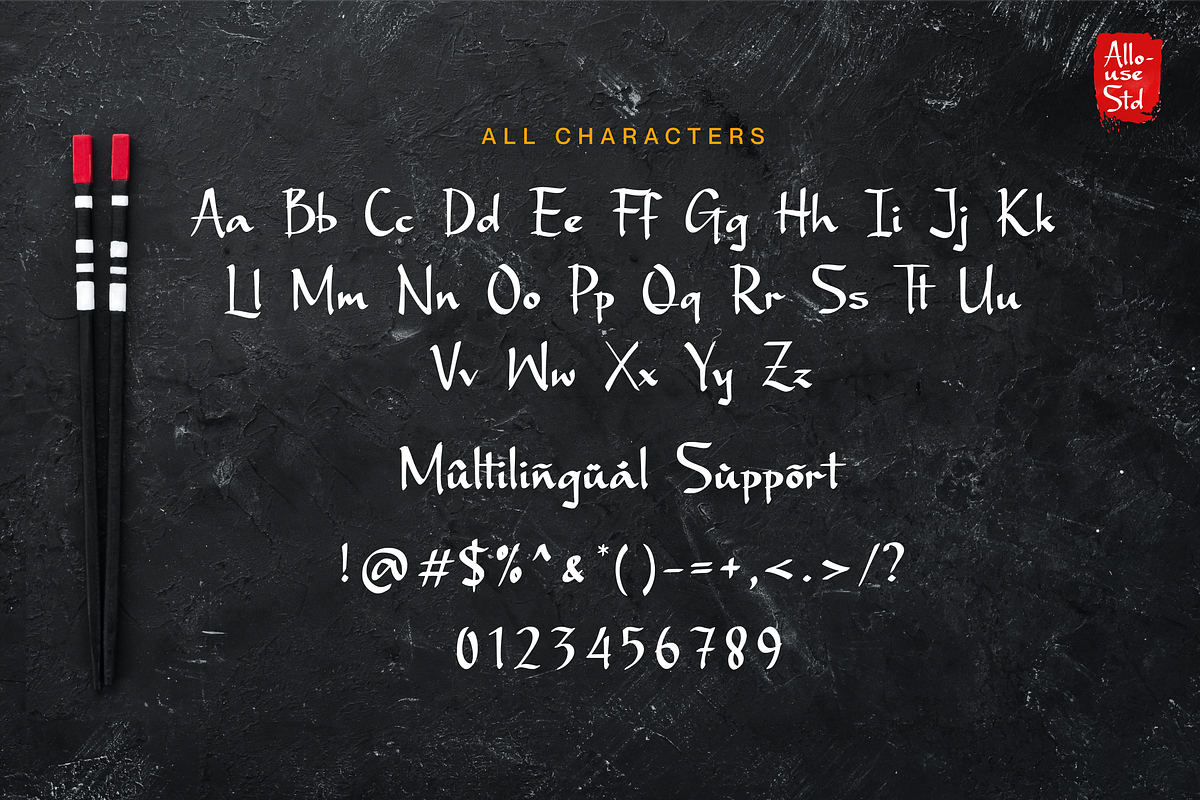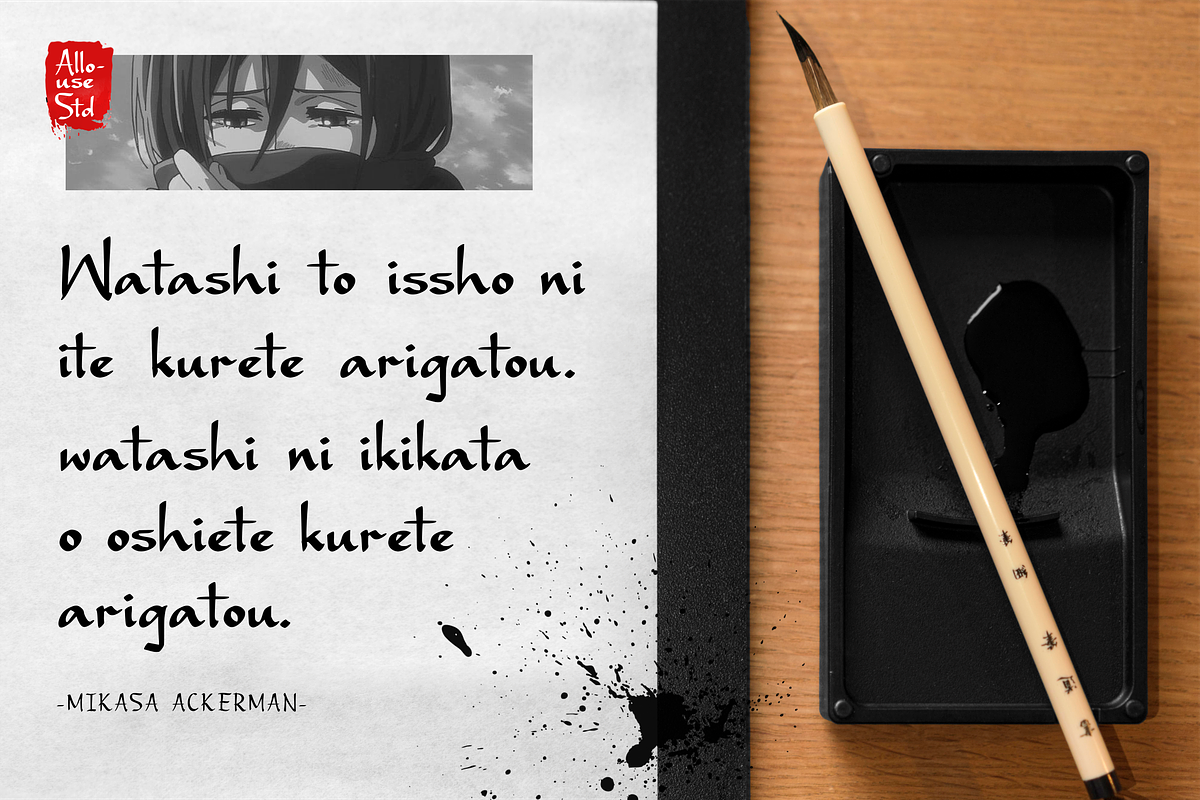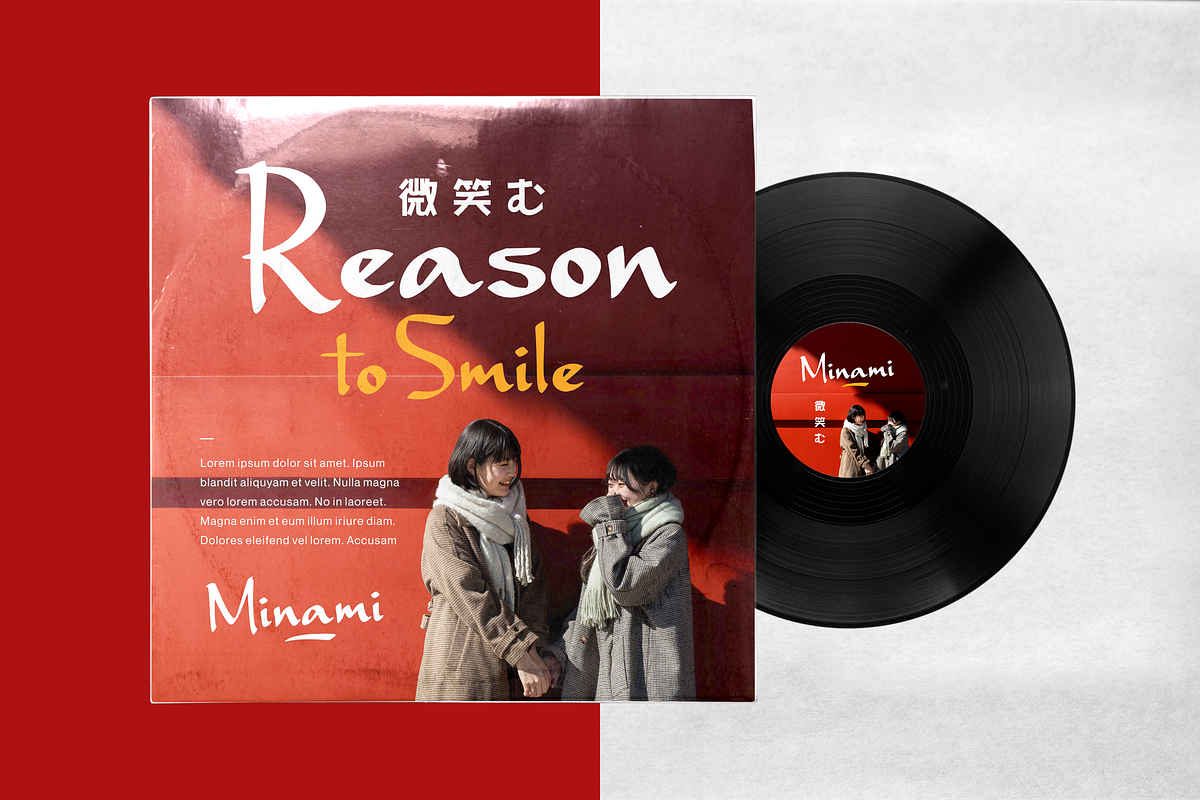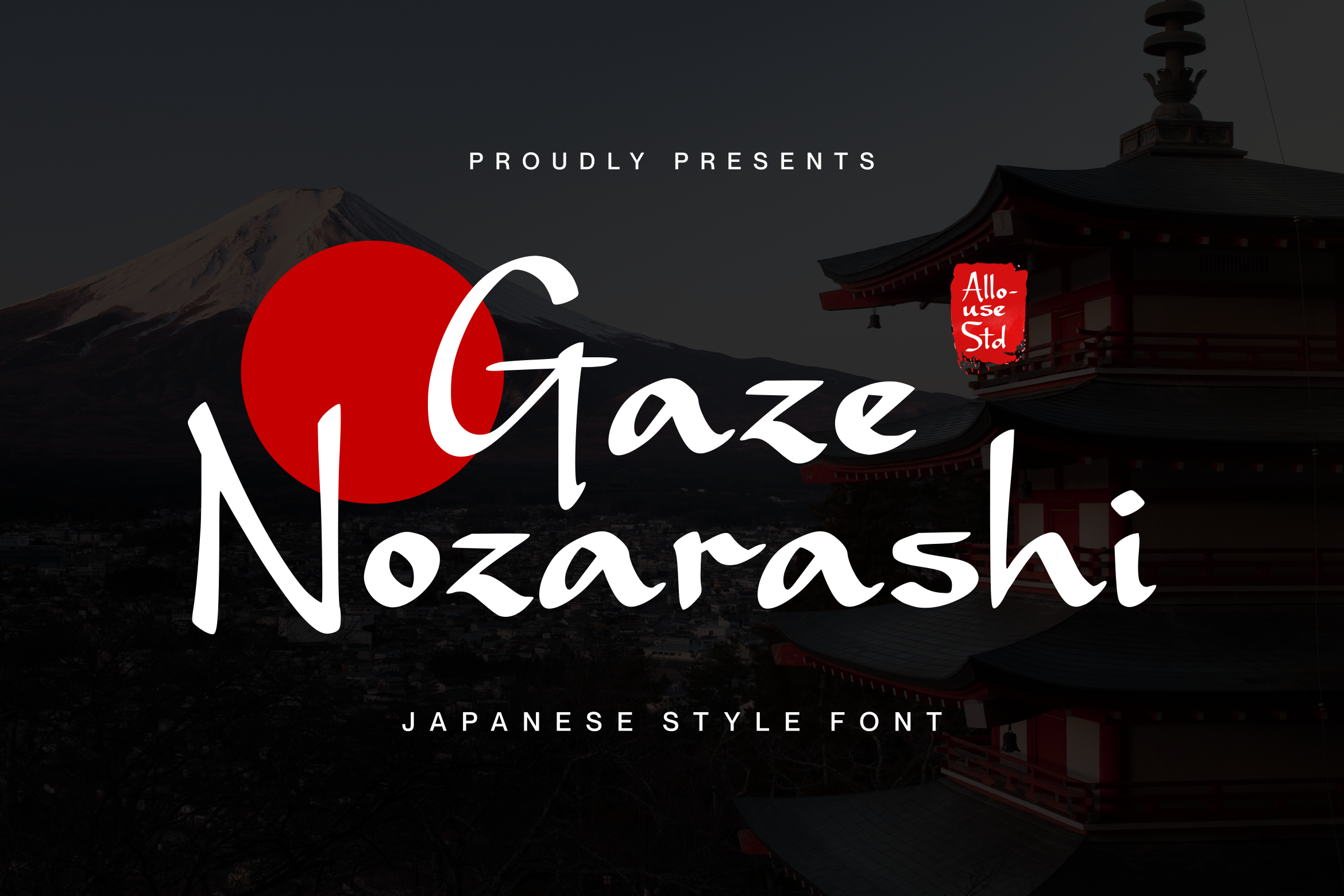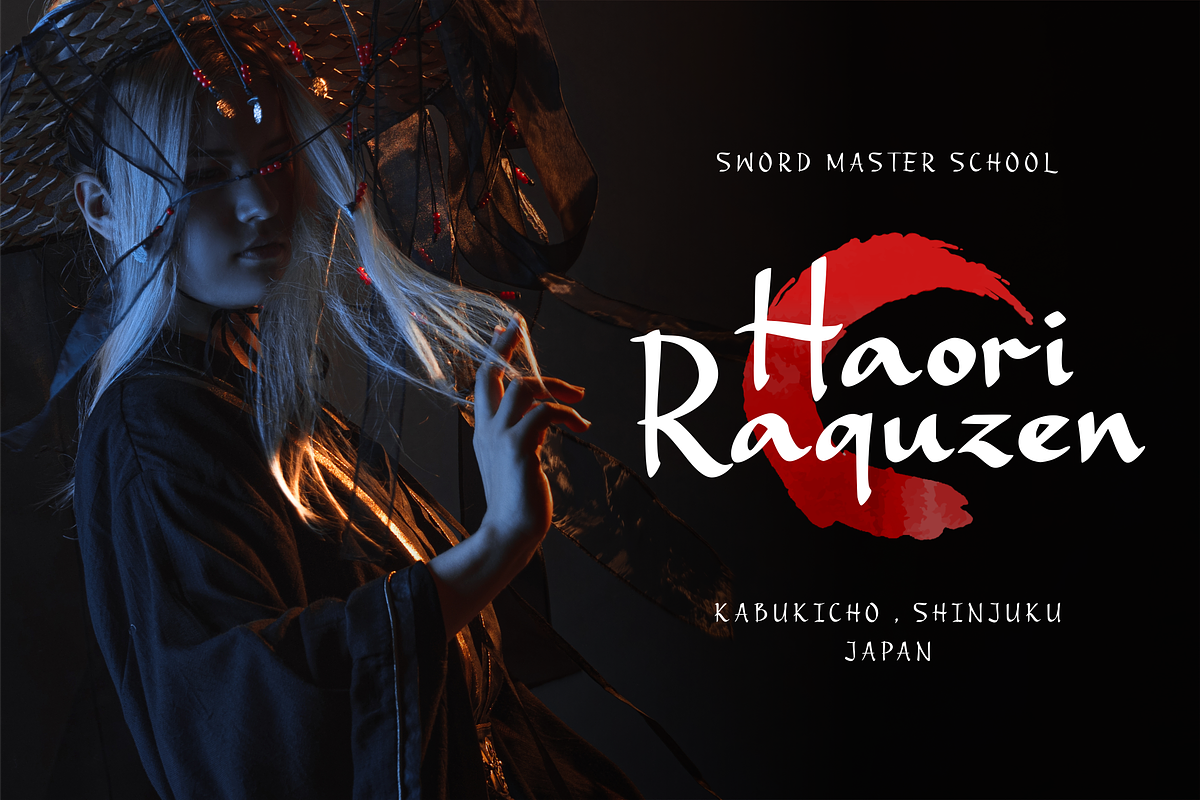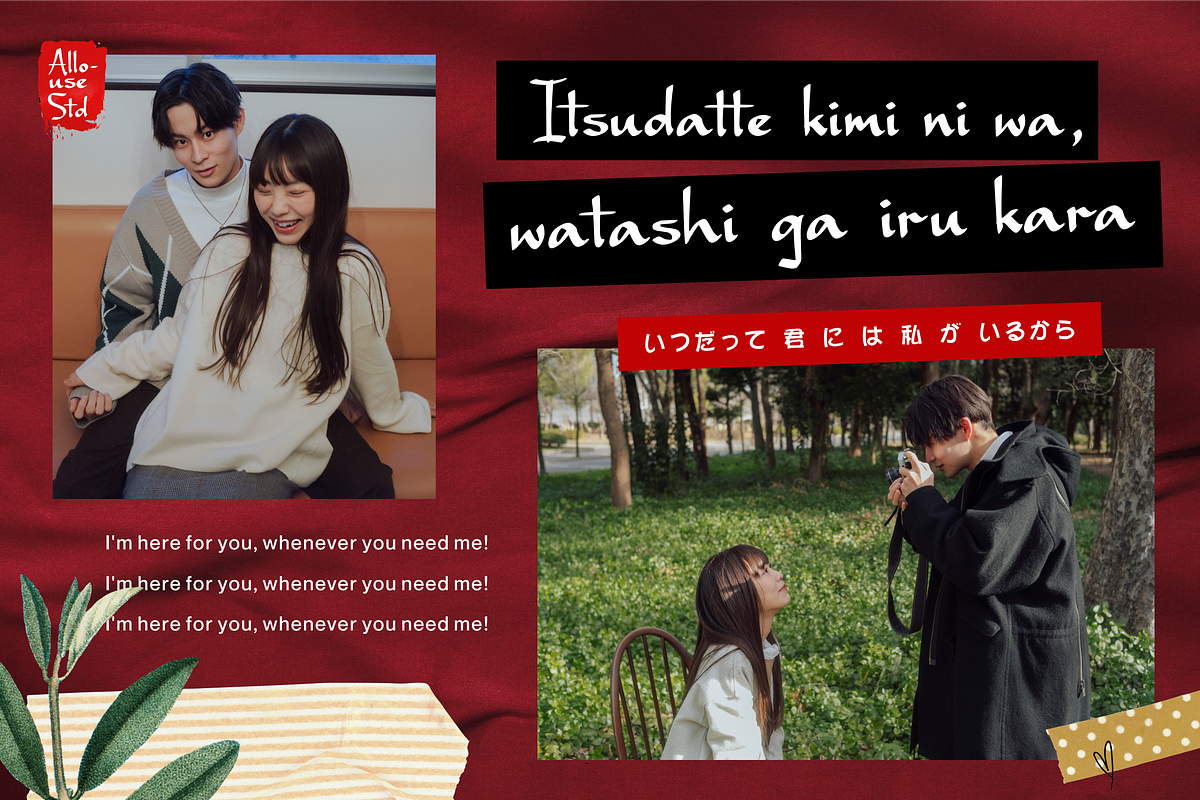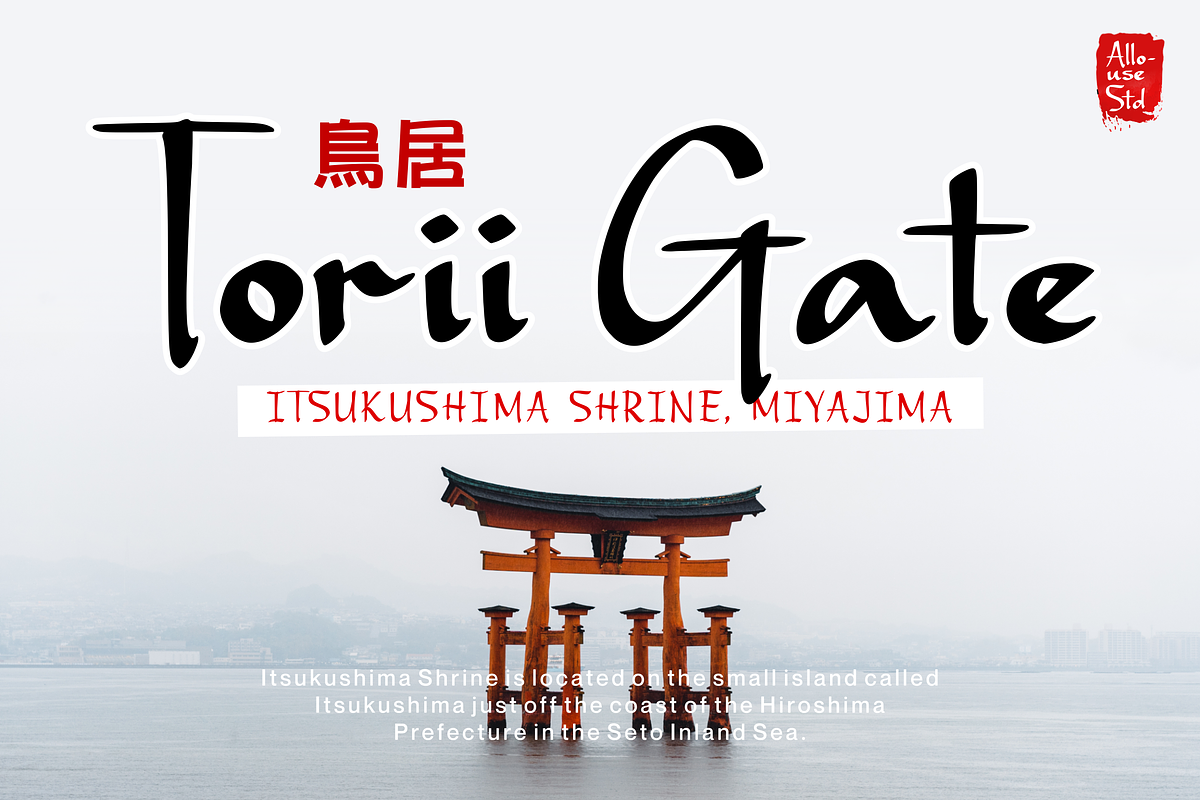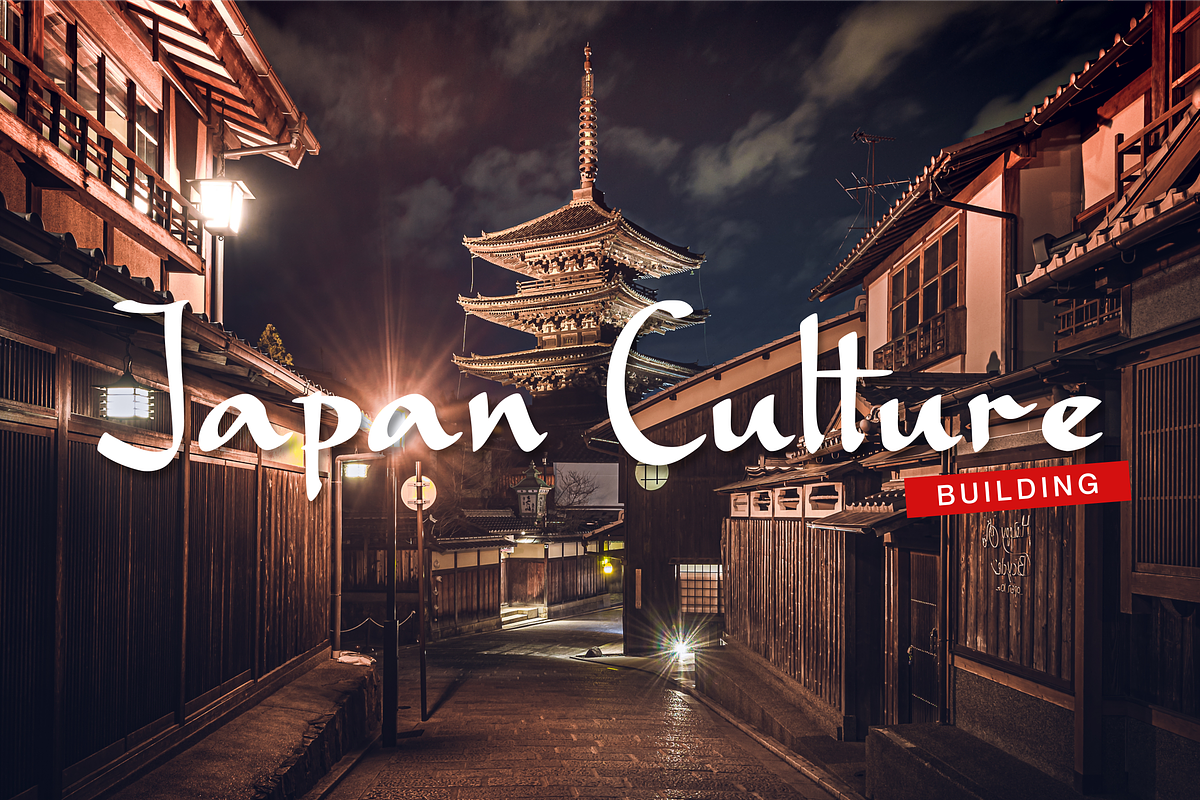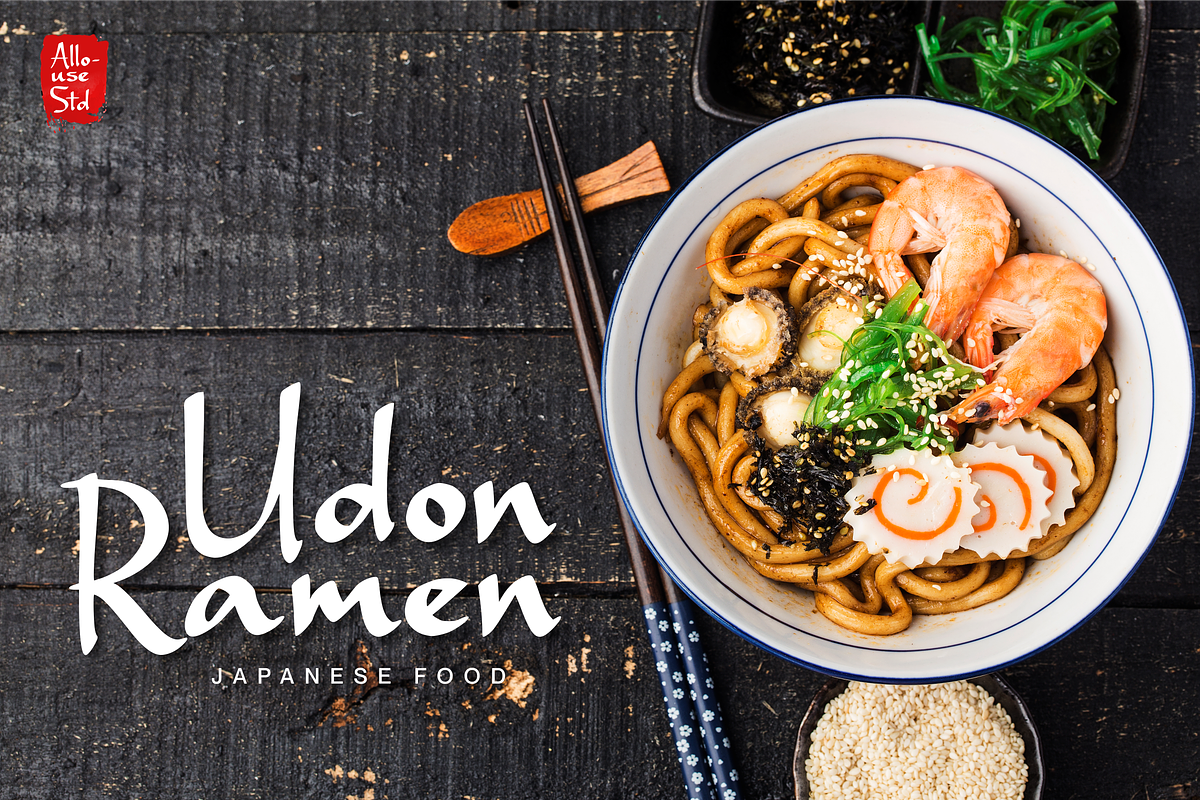
Gaze Nozarashi A Japanese Style Font
Proudly Presenting, Gaze Nozarashi A Japanese Style Font.
Gaze Nozarashi is perfect for any titles, logo, product packaging, branding project, megazine, social media, wedding, or just used to express words above the background.
Gaze Nozarashi also come with Multi-Lingual Support.